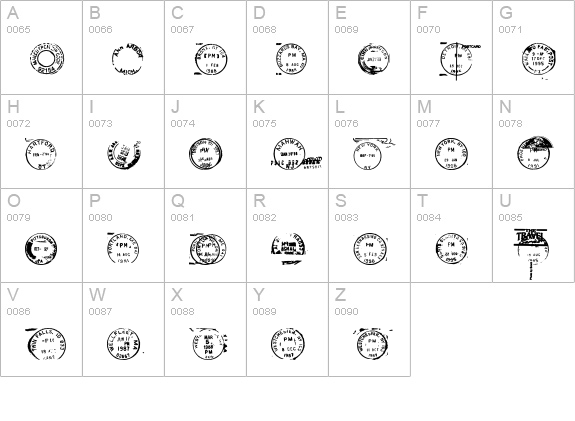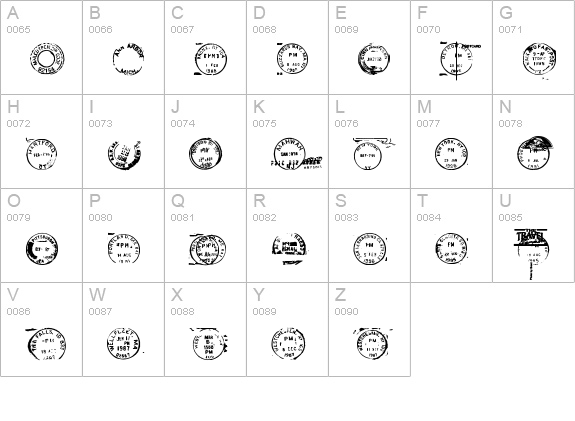
Dead Letter Office Twenty Nine font is a unique and eye-catching typeface that combines vintage charm with a modern twist. Its distressed and irregular letterforms give off a sense of history and nostalgia, making it perfect for projects that require a touch of authenticity and character. This font is freely available to download at FontsMarket.com, making it accessible to designers and creatives looking to add a distinct edge to their work. With its bold and striking appearance, Dead Letter Office Twenty Nine font is sure to make a statement and stand out from the crowd. Whether you're working on a poster, logo, or branding project, this font will add a touch of personality and flair that will set your design apart.